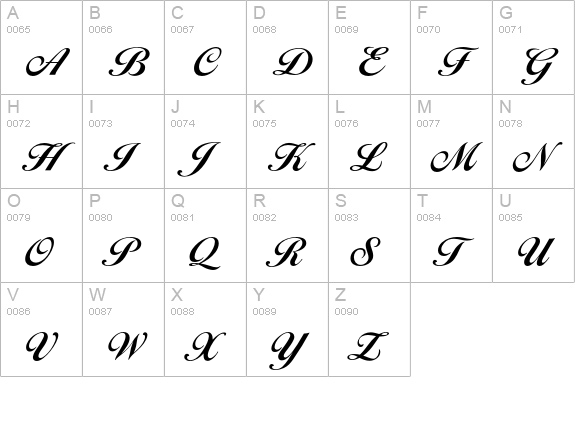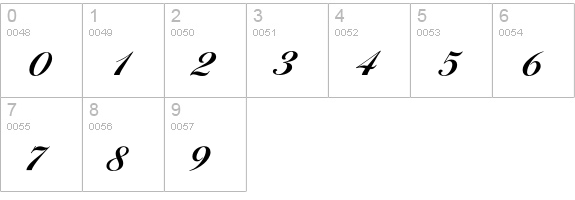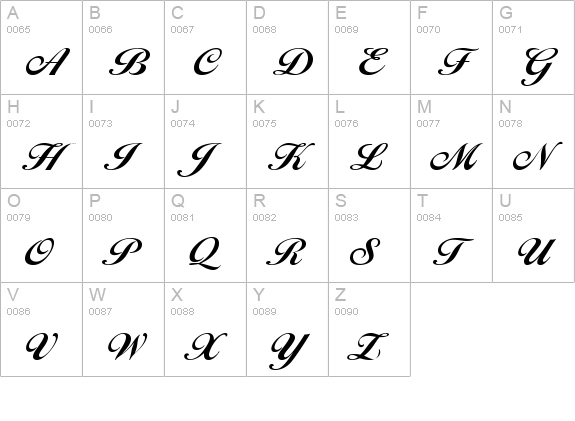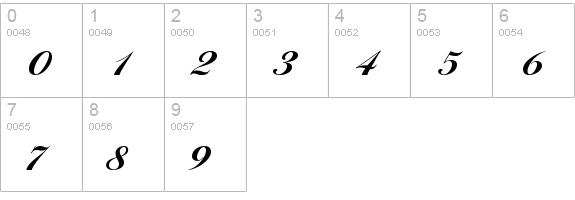
BallantinesScriptEF-Bold Font Details
BallantinesScriptEF-Bold is a strong, high-contrast variant in the BallantinesScriptEF typeface family \xE2\x80\x94 well suited to headlines, attention-grabbing titles, and strong calls-to-action.
BallantinesScriptEF-Bold font exudes elegance and sophistication with its bold, flowing script style. Perfect for adding a touch of luxury to any design project, this font is a timeless choice for invitations, branding, and more. The thick strokes and graceful curves of BallantinesScriptEF-Bold make it a standout choice for creating eye-catching designs that demand attention. And the best part? BallantinesScriptEF-Bold is available for free download at FontsMarket.com. Whether you're a professional designer or a hobbyist looking to elevate your projects, this font is a must-have addition to your collection. Download BallantinesScriptEF-Bold today and add a touch of class to your designs effortlessly.